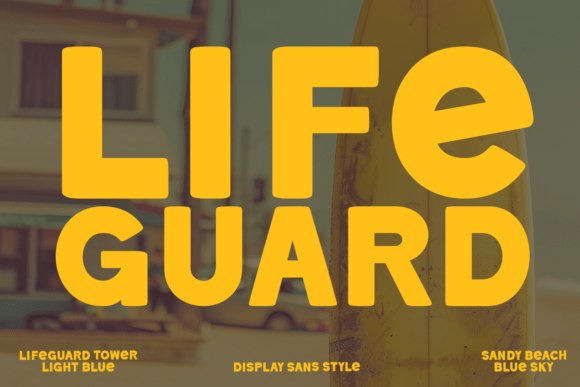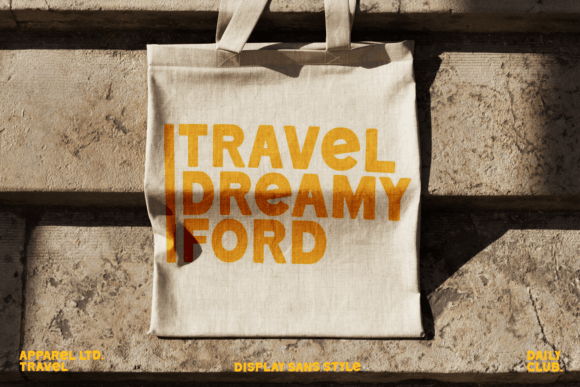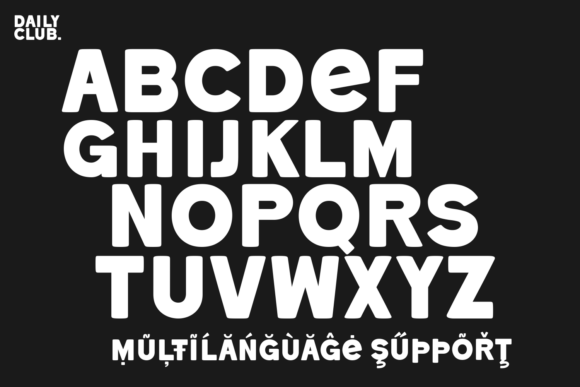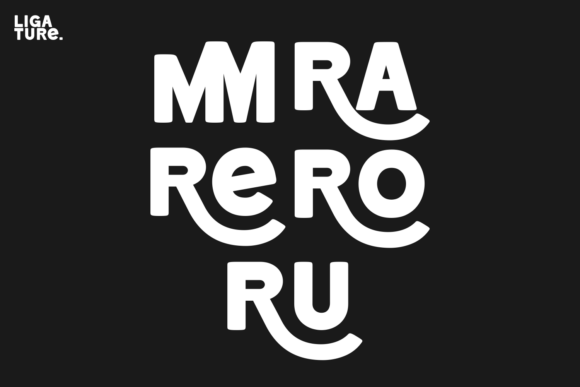
Introduction to Daily Club Font
Daily Club feels playfully nostalgic and delivers an incredible vintage aesthetic.
Use this sans serif font to add that special retro touch to any design idea you can think of .